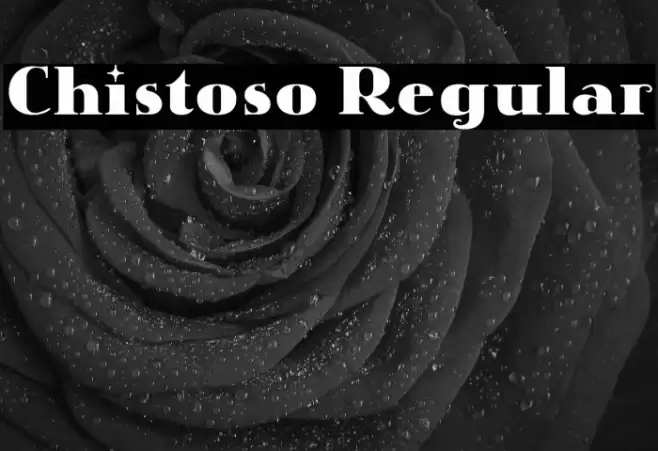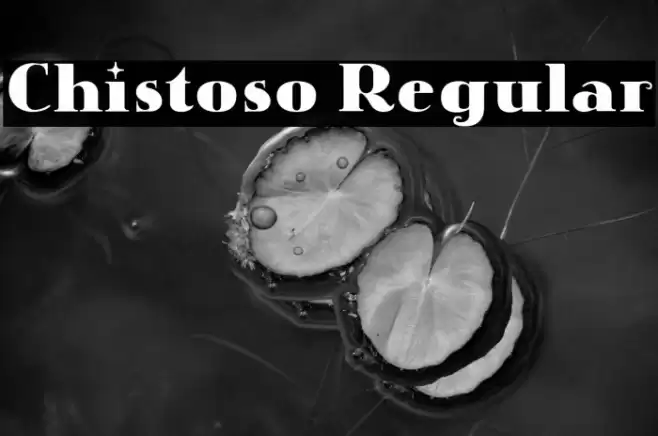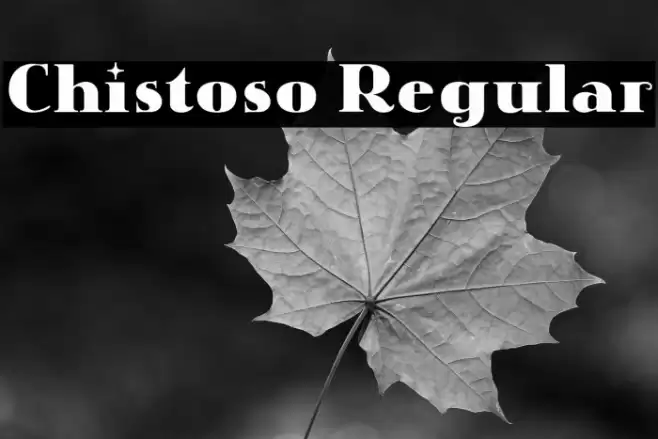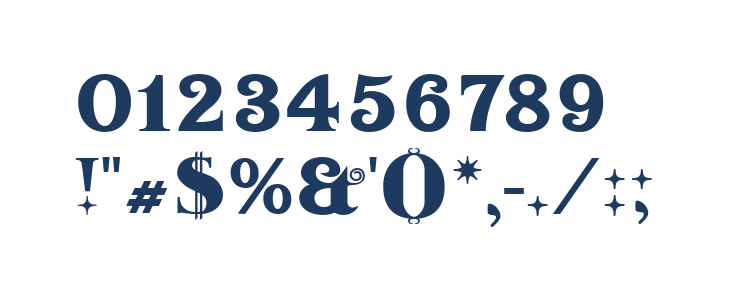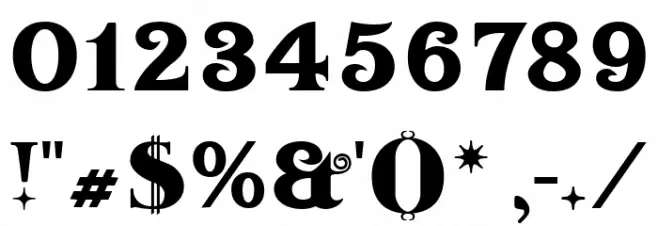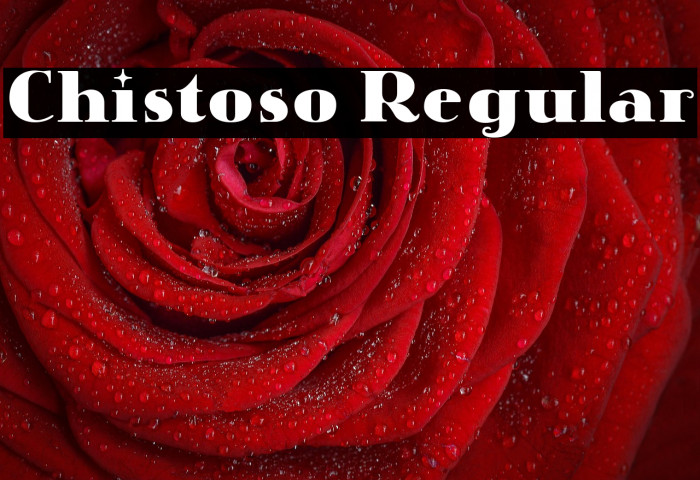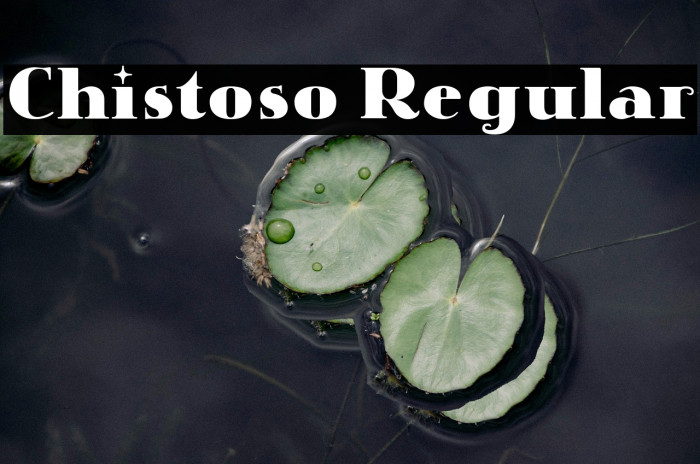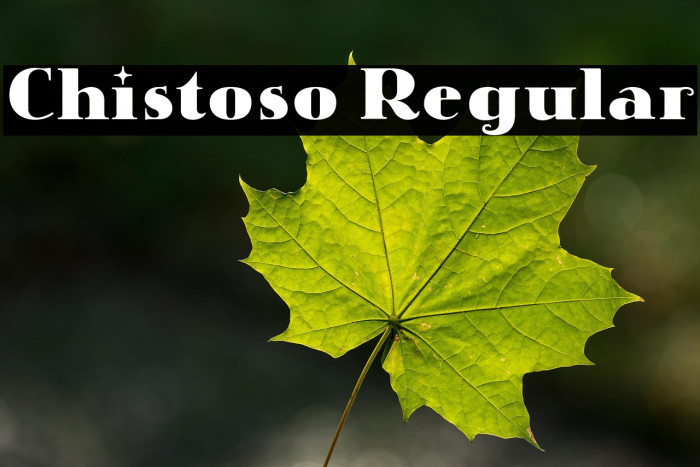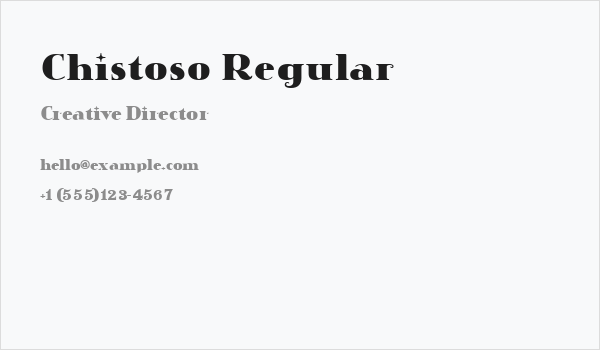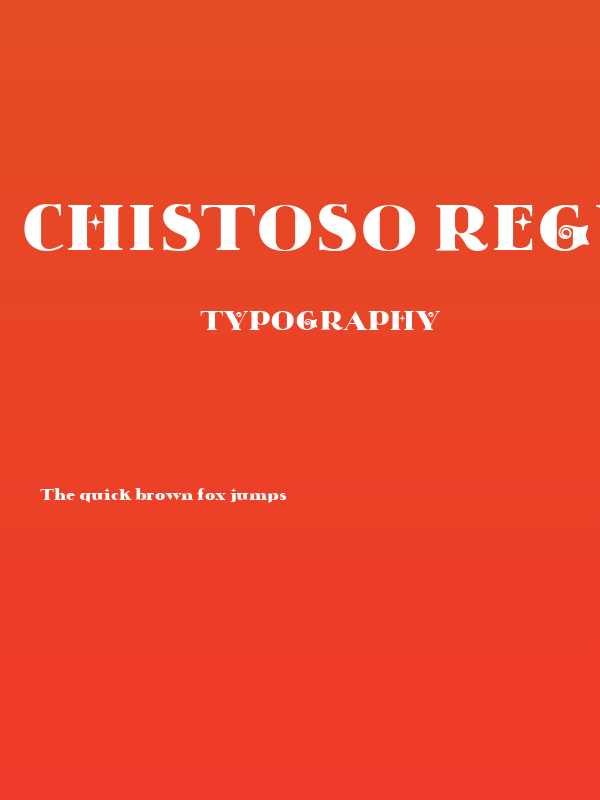
Chistoso Regular Font
Chistoso Regular Description
This font features a playful and whimsical design, characterized by its decorative elements and unique embellishments on certain characters. The uppercase letters are bold and striking, with some incorporating swirls and stars that add a touch of fun and creativity. The lowercase letters maintain a consistent style, with rounded forms and occasional decorative accents. The numerals are bold and easily readable, while the special characters continue the theme of playful design with unique twists and curls. Overall, this font exudes a sense of humor and lightheartedness, making it ideal for projects that require a touch of personality and flair.
A playful and whimsical font with decorative elements and unique embellishments from Uncategorized fonts.